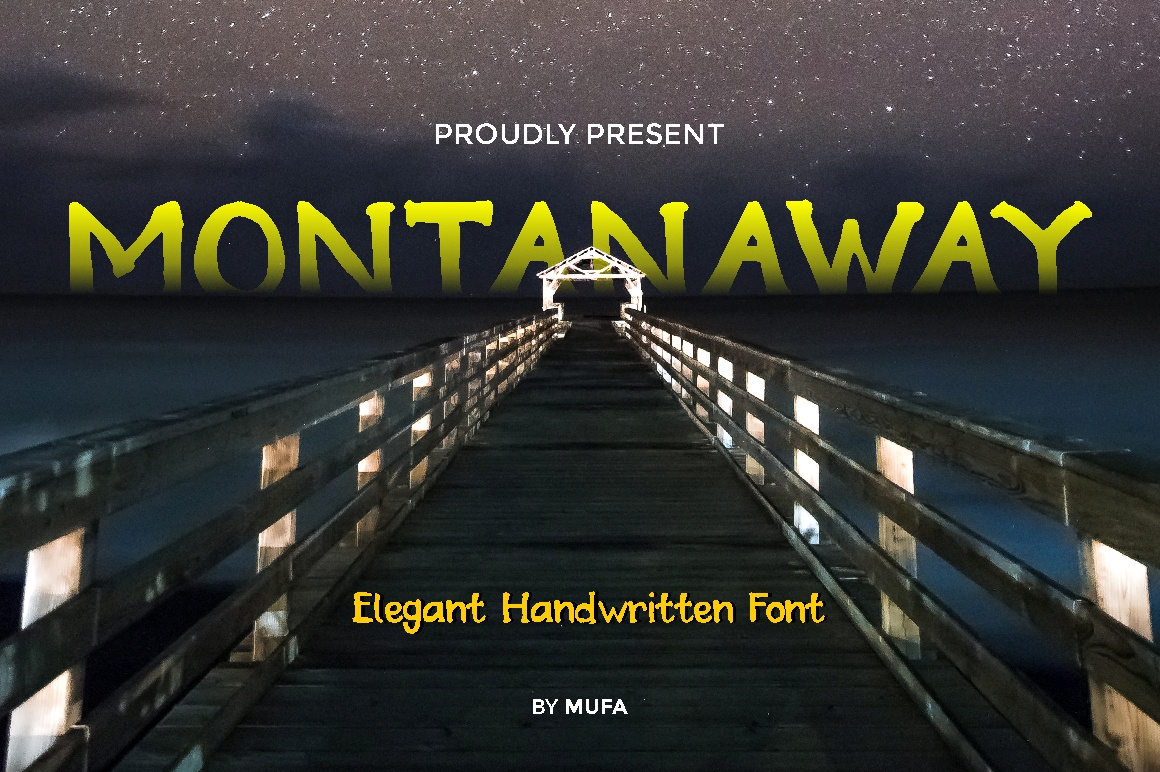
MONTANAWAY - Elegant Handwritten Font by Mufa
Montanaway is a simple and neat lettered display font by Mufa.
Montanaway is perfect for branding projects, logo, wedding designs, social media posts, advertisements, product packaging, product designs, label, photography, watermark, invitation, stationery and any projects that need handwriting taste.